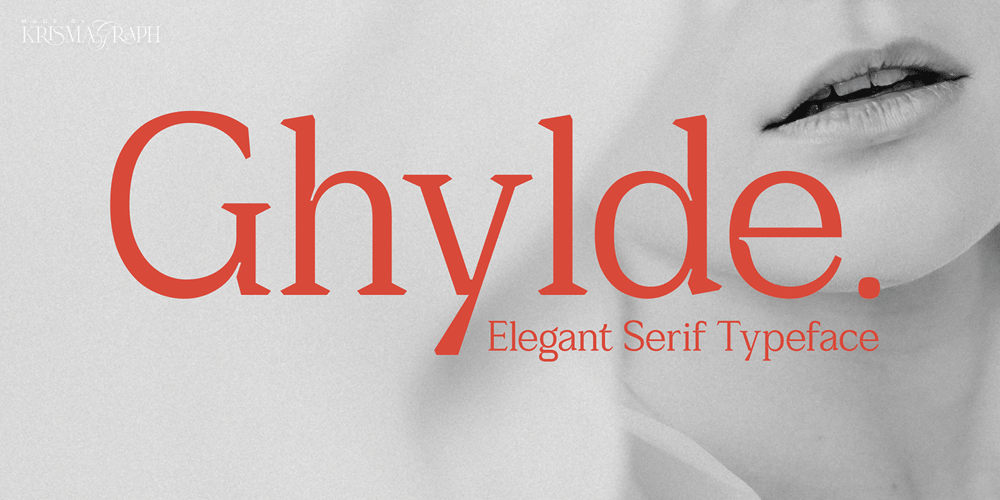
Ghylde Font Family was designed by Ratna Krismawati and published by Krismagraph. Ghylde contains 1 styles and family package options. Ghylde is an elegant & modern Serif Display typeface that stands out. Ghylde will be best suited for creating logotypes, branding, headlines, corporate identities, and marketing materials for the web & as well as any minimal designs. Please see the included demographics to get an idea about the capability of this typeface when used for branding and marketing material design.Thank you.